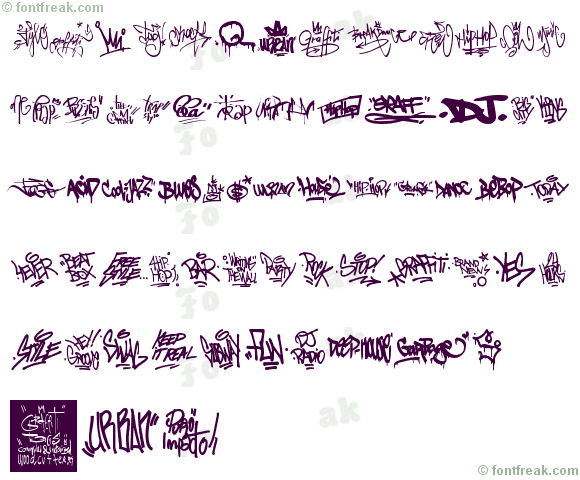
Graffiti Tags
Graffiti Tags by woodcutter Manero is a striking display typeface that captures the essence of urban street art. This font is characterized by its bold, expressive strokes that mimic the spontaneous flair of graffiti tags, making it perfect for creative projects that require a modern, edgy vibe. The visual characteristics of Graffiti Tags include varying stroke weights, providing a sense of dynamism and movement. The letters are tightly spaced, enhancing the overall impact while maintaining legibility. Each character features unique decorative elements that evoke the raw energy and individuality found in street art, making it a versatile choice for various applications.
Best suited for projects such as music event posters, urban fashion branding, and skateboarding graphics, Graffiti Tags brings a youthful and rebellious spirit to any design. It's also ideal for social media graphics and promotional materials aimed at a younger audience, helping small business owners and content creators stand out in a crowded marketplace. Graphic designers looking to infuse their work with an authentic urban edge will find this font particularly appealing, as it allows for creative expression in an approachable yet striking manner.
The target audience for Graffiti Tags includes graphic designers, small business owners, and content creators who seek to convey a bold message through their visuals. The font’s freeware license makes it accessible for both personal and commercial use, encouraging widespread adoption. What sets the Graffiti Tags font apart is its ability to blend artistic flair with functional typography, making it not just a typeface but a statement piece. For anyone looking to enhance their creative projects, the Graffiti Tags font free download is an excellent choice that promises to elevate any design with its unique character and energy.